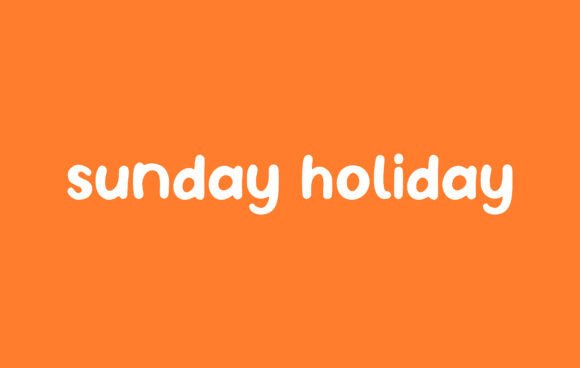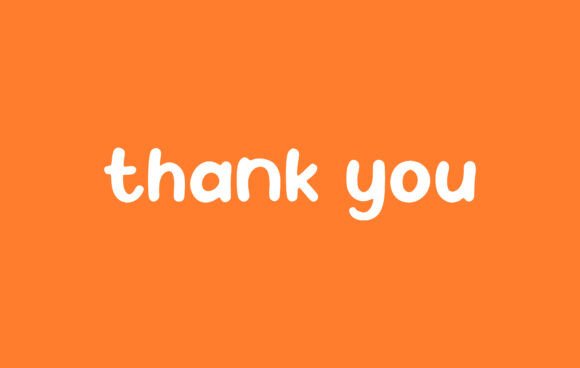
Introduction to Matilda Font
Remember that moment when you finally found the perfect font to bring your creative project to life? It’s like discovering a hidden treasure that makes all the difference. For designers, it’s a moment of pure joy, and it’s exactly what happens when you stumble upon the enchanting Matilda Font. This authentic handwritten font exudes a romantic touch, making it a true favorite among designers.
Whether you’re working on a magazine headline, social media campaign, or wedding invitation, Matilda Font is the perfect design resource to elevate your work. Its high-quality design ensures it’s legible and visually appealing, even with a transparent background. And the best part? It’s available for free download, making it a valuable addition to any designer’s toolkit.
As a designer, you know how crucial it is to have the right tools to bring your creative ideas to life. With Matilda Font, you’ll be able to create stunning designs that capture the essence of your vision. So, get ready to fall in love with this beautiful font and take your design projects to the next level.
Key Features of Matilda Font
- High-quality, professional font suitable for various creative projects
- Available in 4 different font sizes, with a minimum size of 12pt and maximum size of 72pt
- High-resolution font, suitable for printing and digital use at 300 DPI
- Unique, elegant design with a touch of sophistication, perfect for adding a creative touch to any project
- Perfect for designers, artists, and writers looking for a high-quality design resource
Honest Review: Matilda Font
I recently stumbled upon the Matilda Font, and I’m excited to share my thoughts with fellow designers. As a design resource, it’s always refreshing to find high-quality fonts that can elevate a creative project.
What works well with Matilda Font is its elegant and sophisticated style, perfect for a variety of design projects, from branding to publishing. The font is available for free download, which is a major plus for designers on a budget. Its transparent background also makes it easy to work with, allowing for seamless integration with other design elements.
- ✨ Elegant and sophisticated style
However, I did encounter some limitations with Matilda Font. The font family is relatively small, and it may not be suitable for large-scale typography projects. Additionally, the font’s versatility is somewhat limited, making it better suited for specific design niches.
Overall, Matilda Font is a solid addition to any designer’s toolkit. While it may not be the most versatile font, its high-quality design and free download make it a great resource for creative projects.
Matilda Font Overview
The Matilda Font is a high-quality, free design resource perfect for creative projects that require a touch of elegance and sophistication. With its transparent background, it can be easily integrated into various design platforms.
The Matilda Font is ideal for a variety of creative projects, including:
- Business cards and branding materials
- Magazine and newspaper articles
To get the most out of the Matilda Font, experiment with different font sizes, styles, and colors. Use the font in combination with other design elements to create visually appealing and effective designs.
When compared to Matilda Font, Great Vibes Font has a more refined and elegant appearance, making it suitable for more formal design projects. However, both fonts share a similar playful and creative vibe, making them great alternatives for designers looking for a unique and eye-catching font.